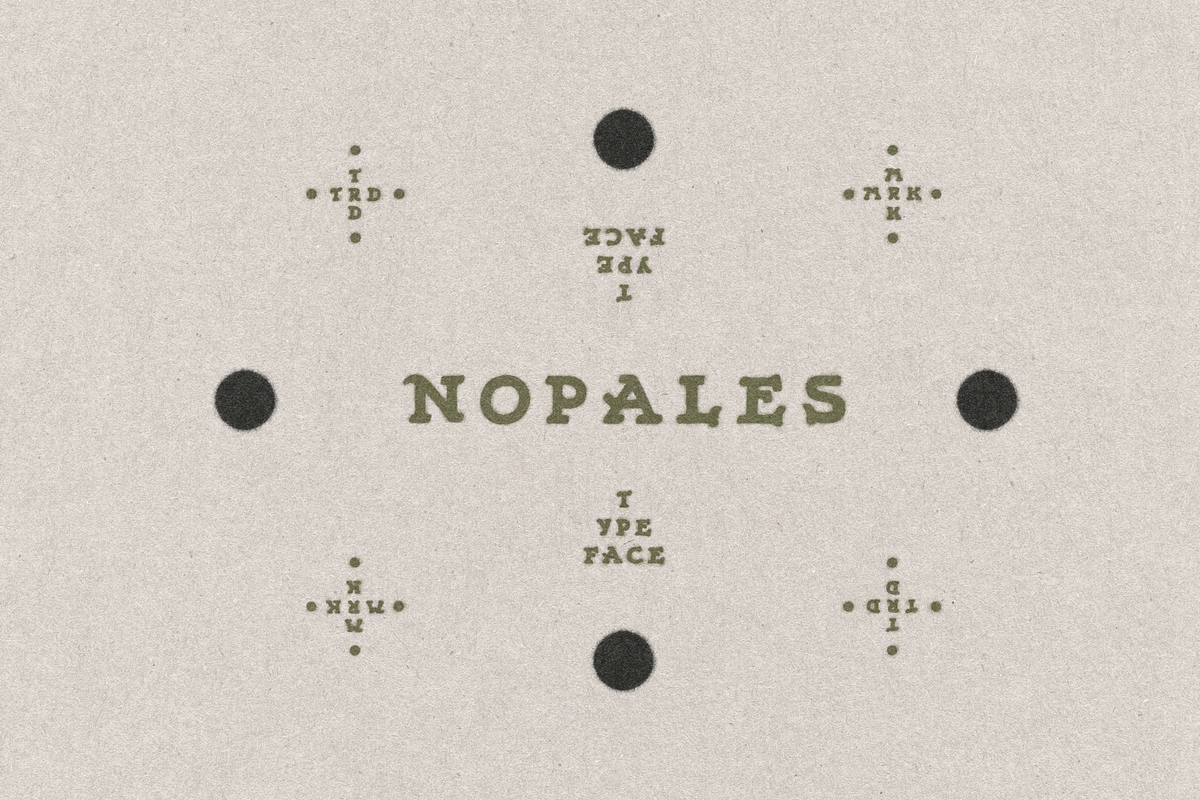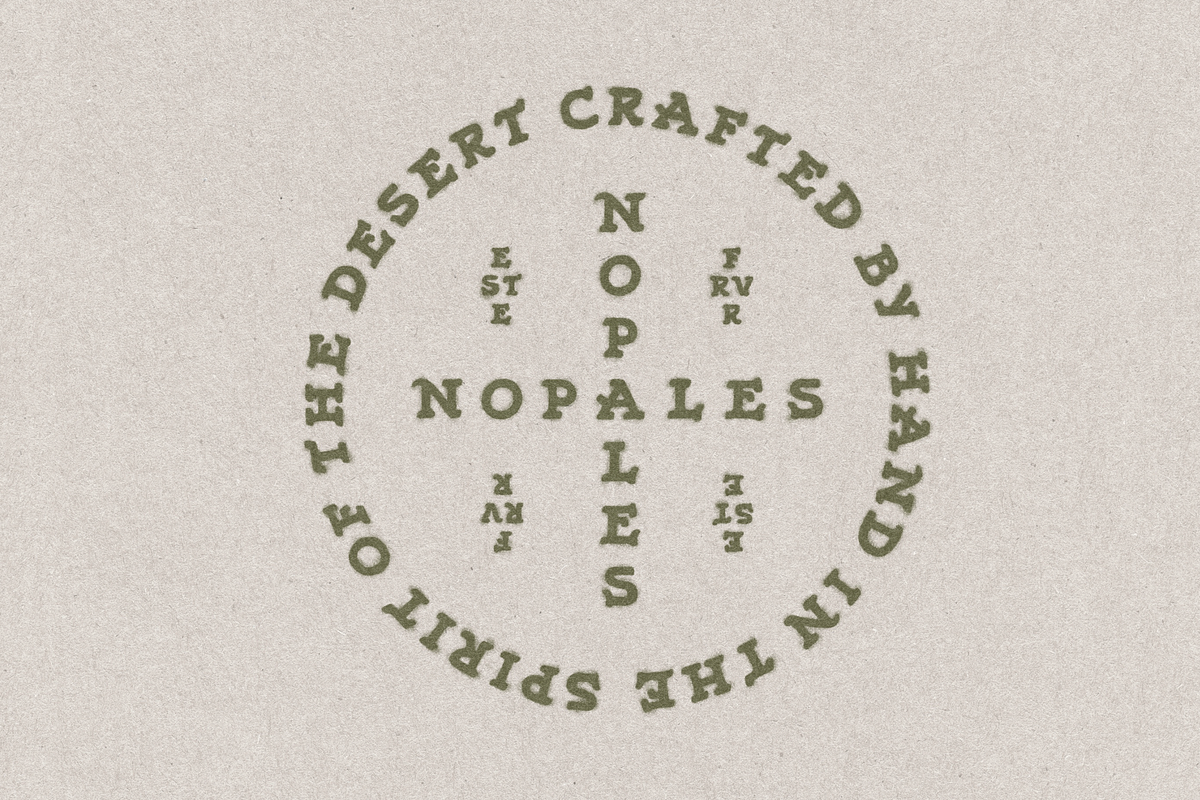
Nopales Typeface
A handcrafted typeface created in the spirit of the desert. Includes characters from multiple languages and a full set of punctuation.